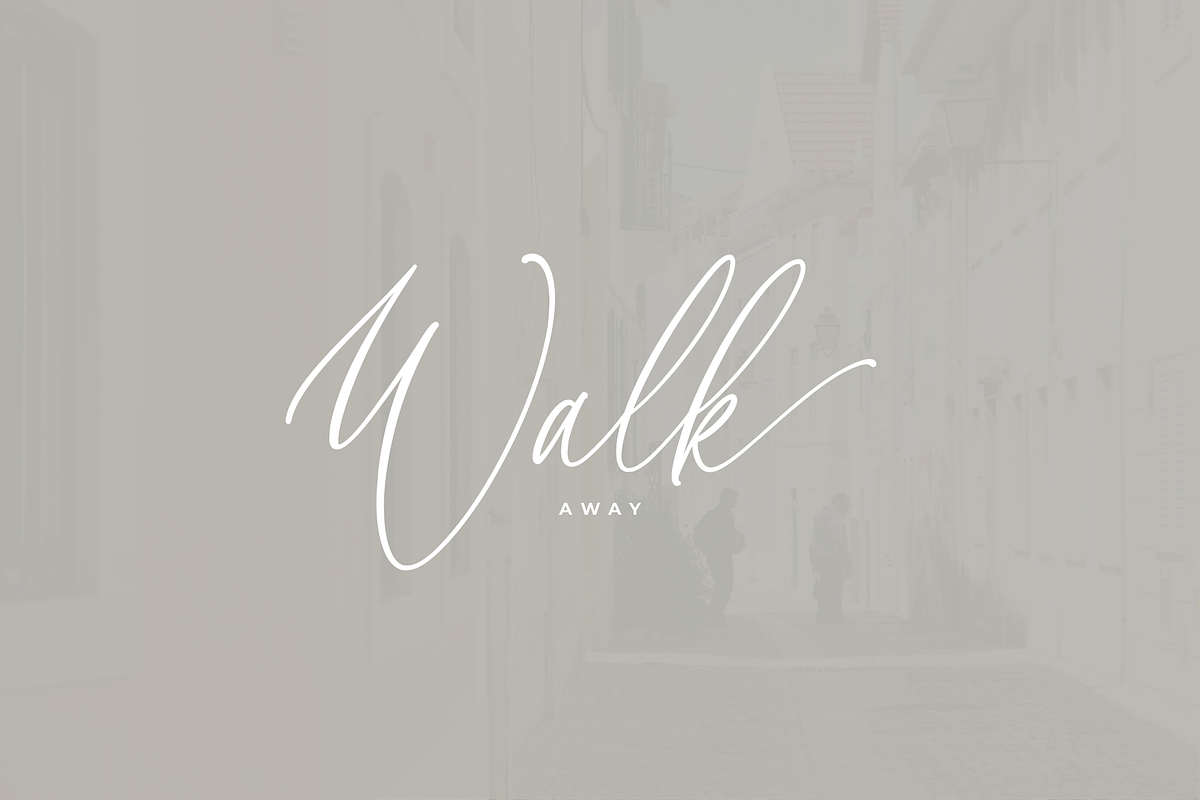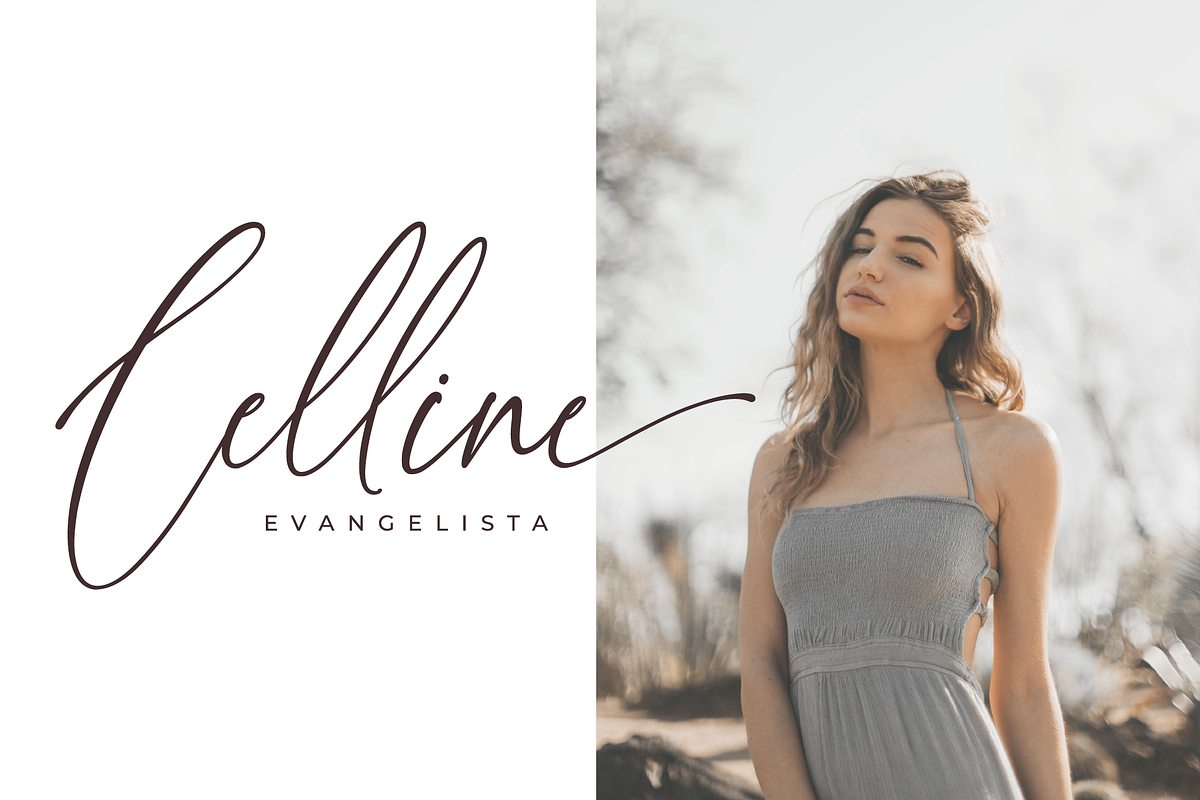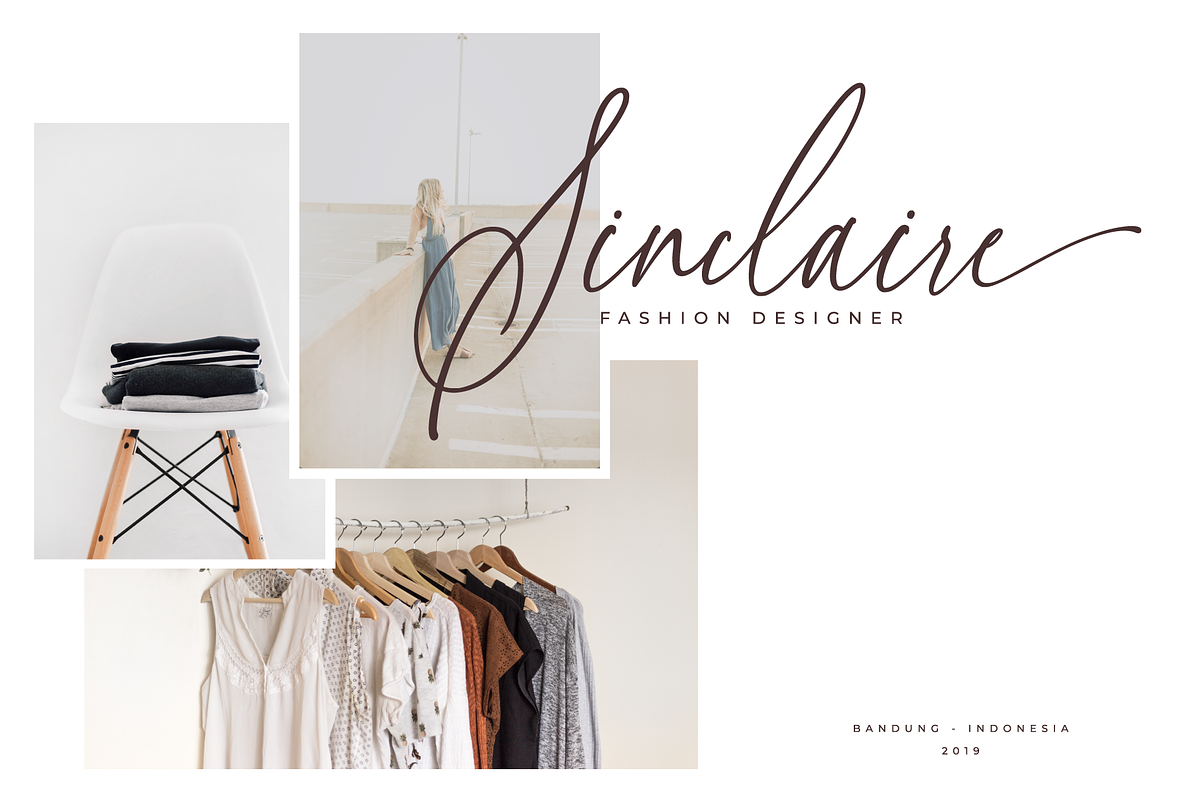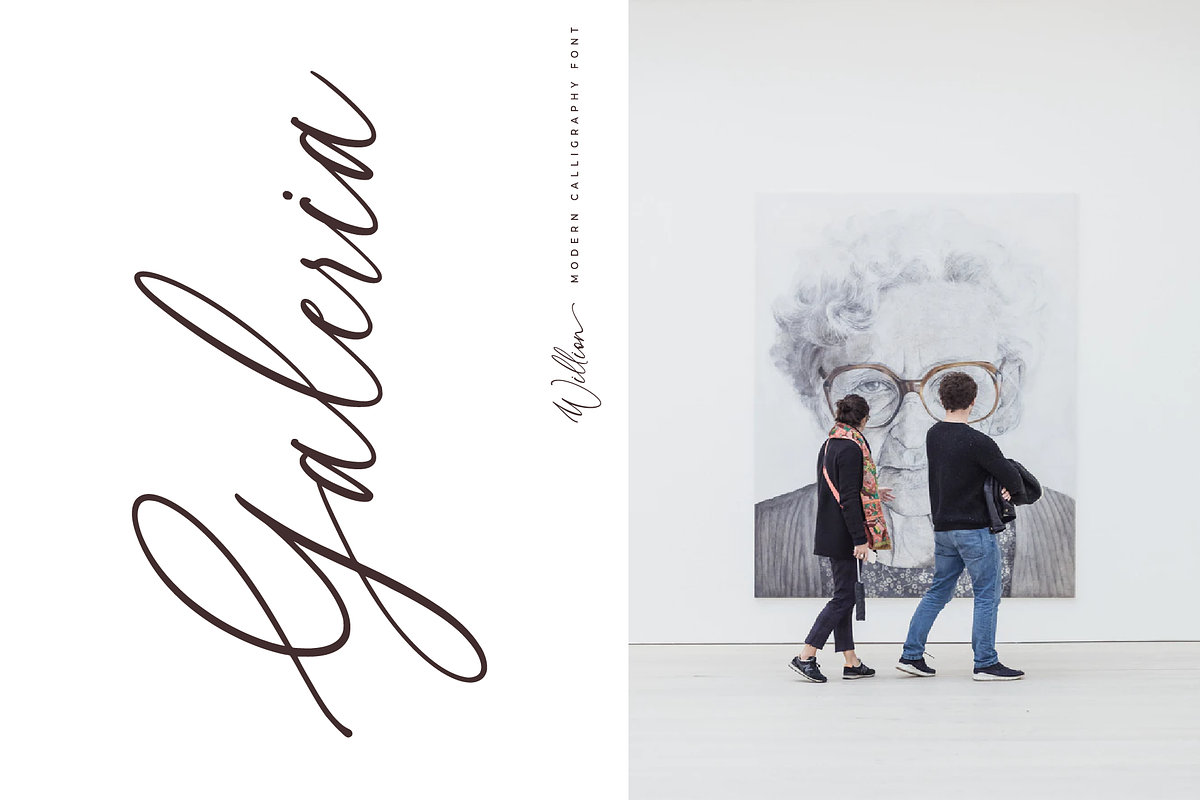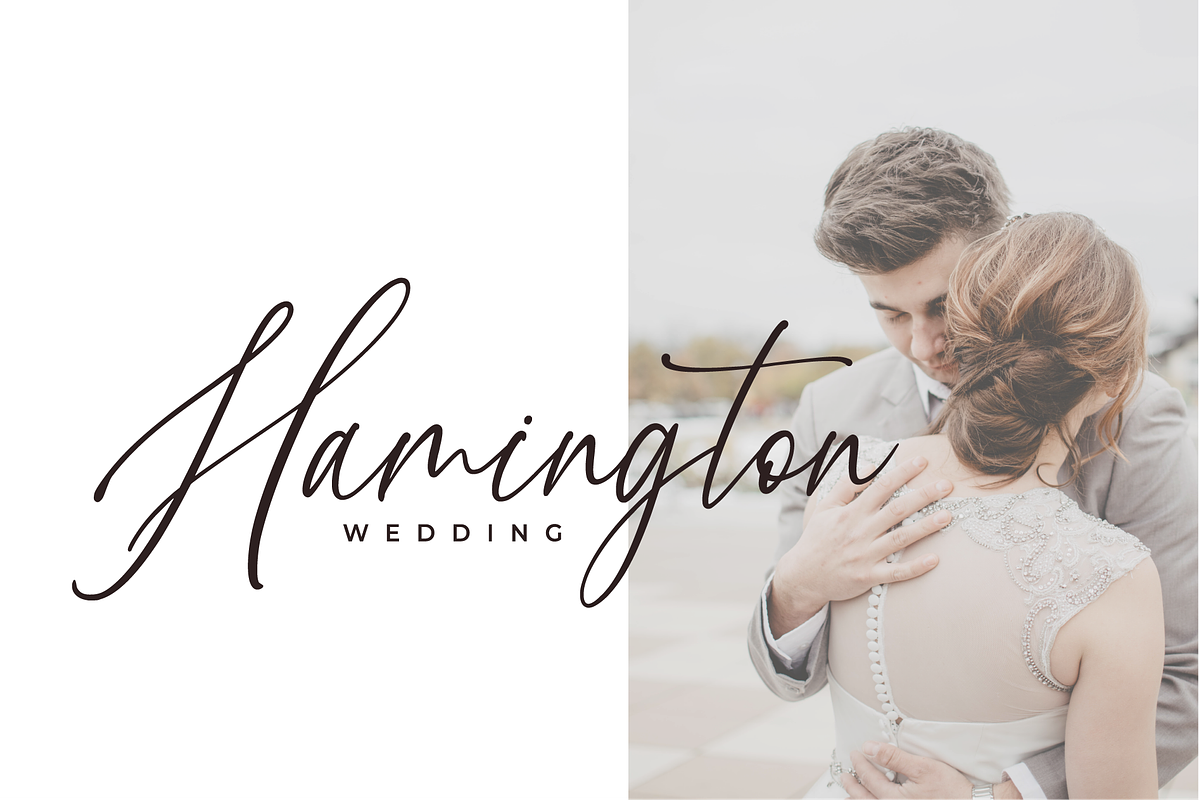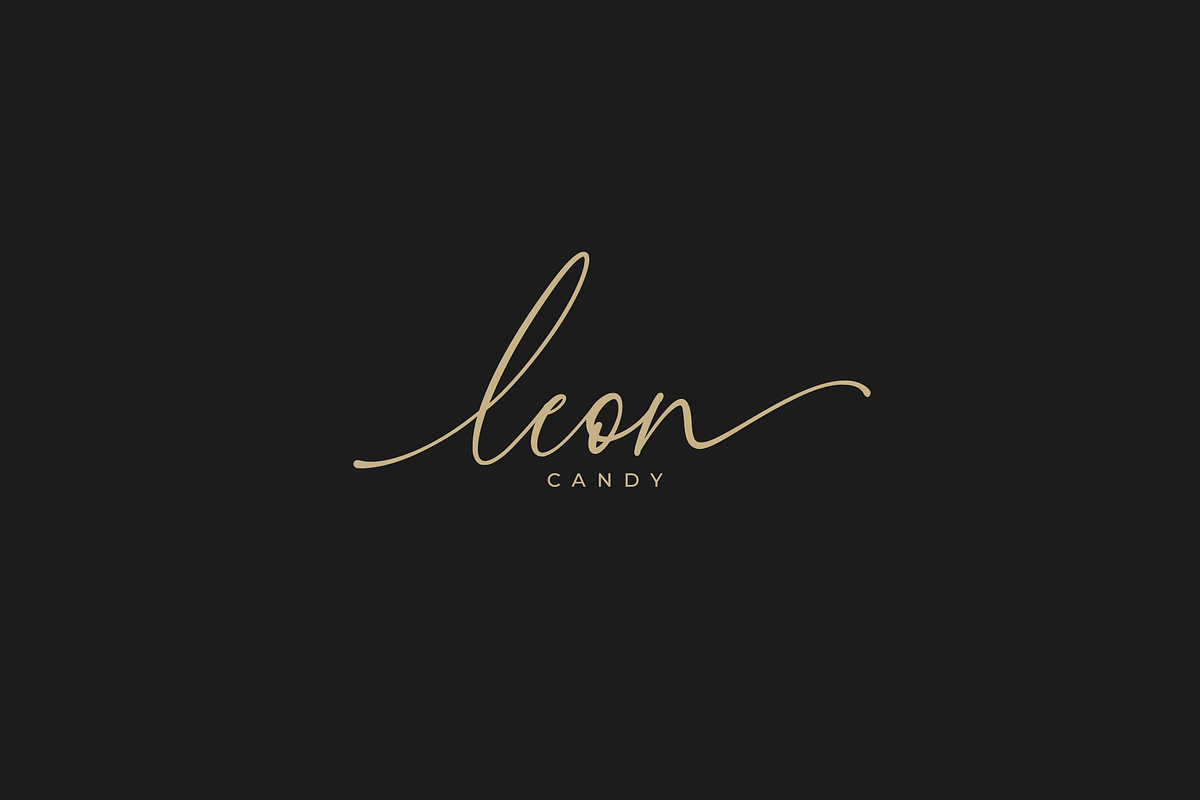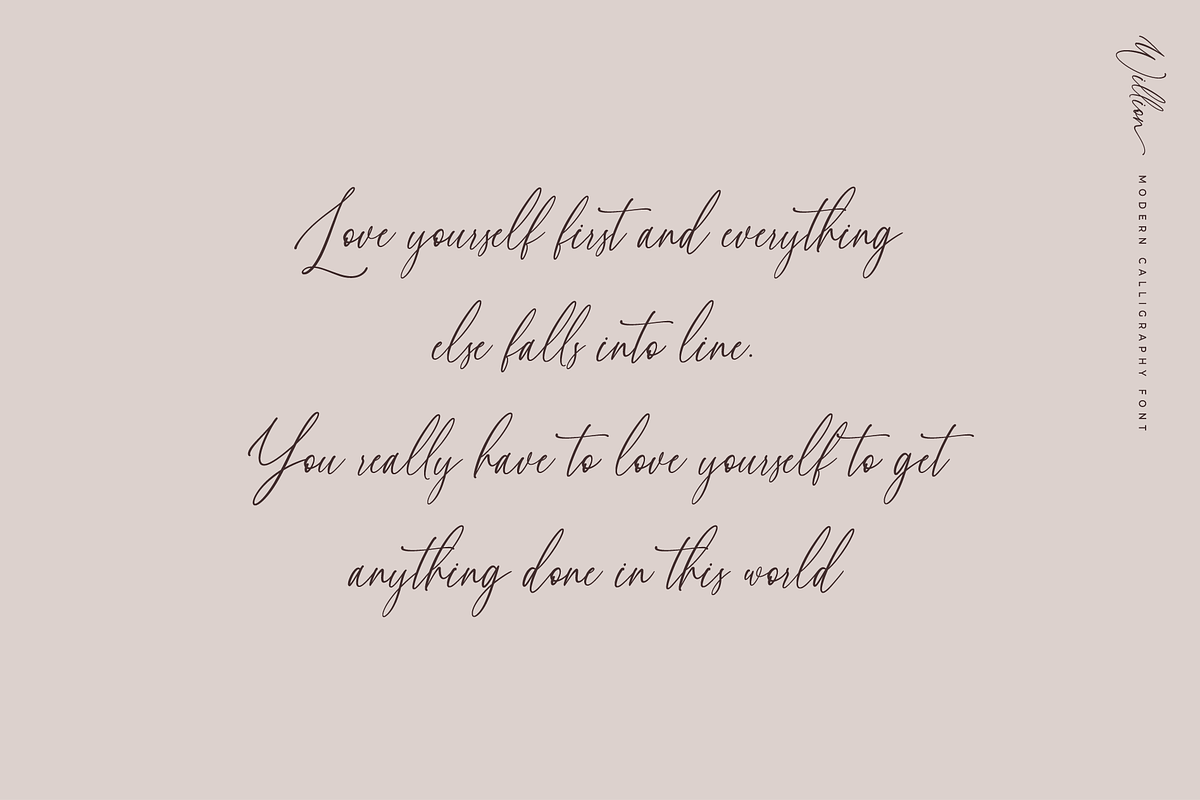
Willion Calligraphy Font
Introducing Willion Calligraphy Font. Willion is perfect for branding projects, homeware designs, product packaging - or simply as a stylish text overlay to any background image. Willion
Uppercase and Lowercase Letter
Number and Punctuation
Multilingual Accent : ÀÁÂÃÄÅÆÇÈÉÊËÌÍÎÏÐÑÒÓÔÕÖØÙÚÛÜÝßàáâãäåæçèéêëìíîïðñòóôõöøùúûüýÿ
- Willion Features : Uppercase and Lowercase Letter Number and Punctuation Beautiful Ligature Stylistic Alternate Multilingual Accent : ÀÁÂÃÄÅ
- Uppercase and Lowercase Letter
- Number and Punctuation
- Beautiful Ligature
- Stylistic Alternate
- Multilingual Accent : ÀÁÂÃÄÅÆÇÈÉÊËÌÍÎÏÐÑÒÓÔÕÖØÙÚÛÜÝßàáâãäåæçèéêëìíîïðñòóôõöøùúûüýÿ
Willion Calligraphy Font by Pen Culture fits naturally into Branding, posters, packaging, typography.